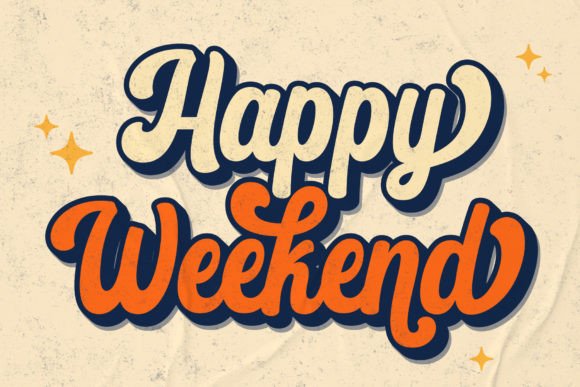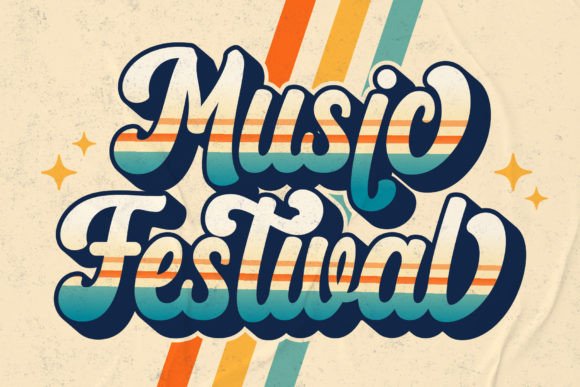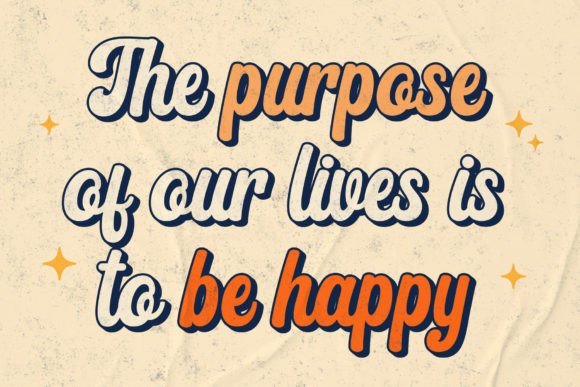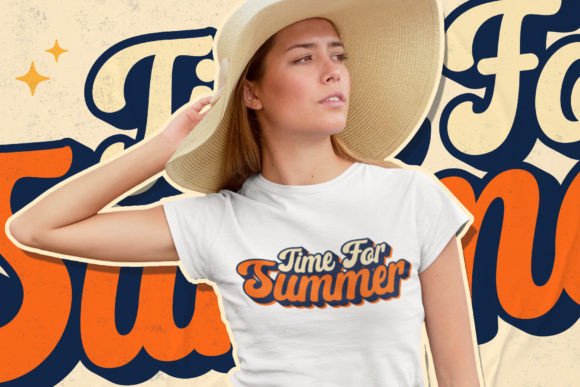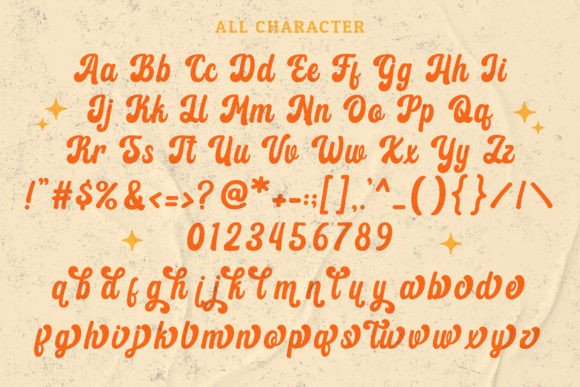
The Bold Script Font: A Vintage Dream for Designers and Crafters
Have you ever been in the middle of a design project, and suddenly, you just can’t seem to find the perfect font? I recall a particularly frustrating experience while working on a wedding invitation design. My client wanted that special retro and vintage touch, but every font I tried seemed either too modern or too over-the-top. That’s when I stumbled upon the Bold Script font, and it was love at first sight! 💕
An Honest Review of Bold Script Font
- ✨ The vintage-style script is perfect for adding a retro touch to any design.
- ✅ It’s incredibly versatile and can be used for logos, branding, invitations, stationery, wedding designs, social media posts, and much more!
- 🔥 The font is PUA encoded, making it easy to access all glyphs and swashes.
While I absolutely adore the Bold Script font, there are a few minor quirks to be aware of:
- 🤔 Some users might find the font a bit too ornate for certain projects, so it’s essential to consider the design’s tone and style.
- ⚠️ As with any script font, it may not be the best choice for body text or long paragraphs.
The Story Behind Bold Script Font
While the true story behind the Bold Script font remains a mystery, it’s easy to imagine that it was created by a designer who was passionate about vintage typography. Perhaps they spent hours pouring over old books and posters, inspired by the elegant script fonts of the past. Whatever the story may be, the end result is a font that’s both beautiful and functional.
Q: What is PUA encoding, and how does it benefit the user?
A: PUA (Private Use Area) encoding allows users to access a font’s glyphs and swashes easily, making it simpler to create unique and personalized designs.
Q: Can I use Bold Script font for body text or long paragraphs?
A: While the Bold Script font is beautiful, it’s not ideal for body text or long paragraphs. Script fonts are best used for headings, titles, or short phrases to add visual interest and personality to your design.